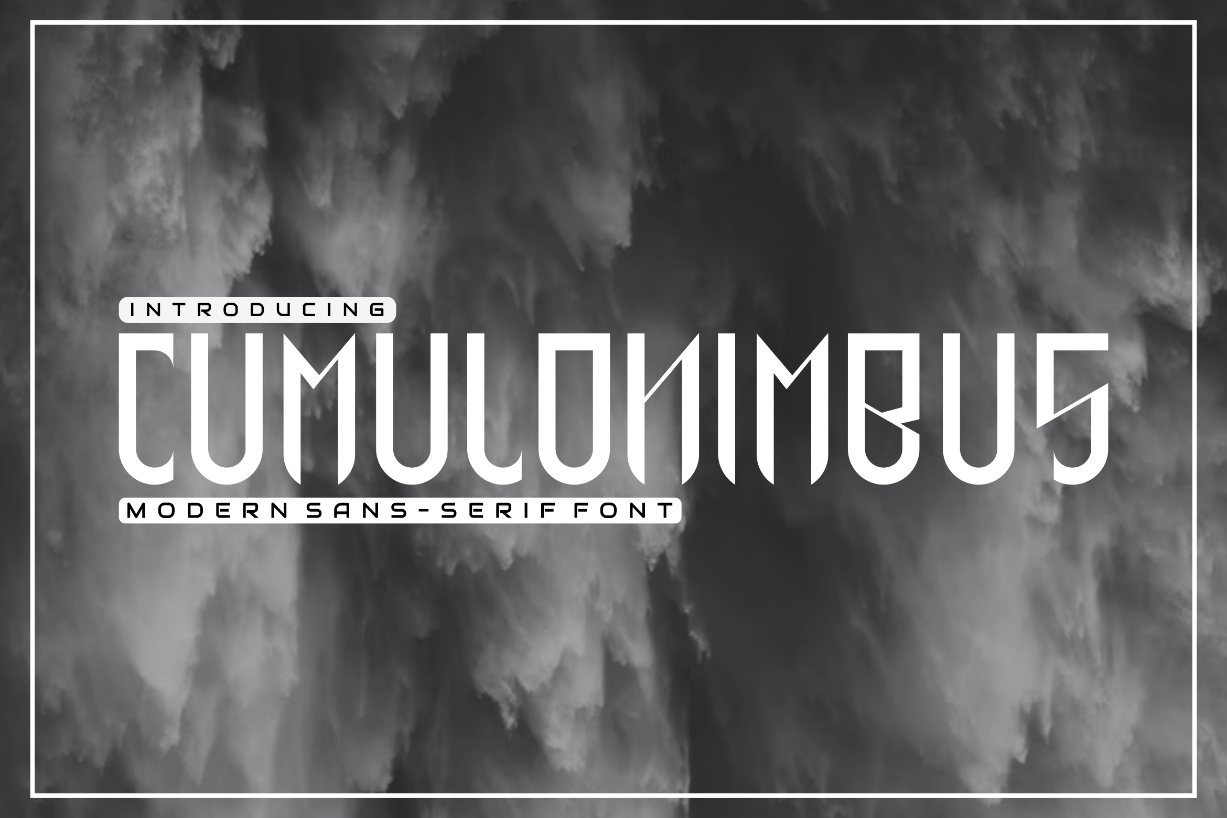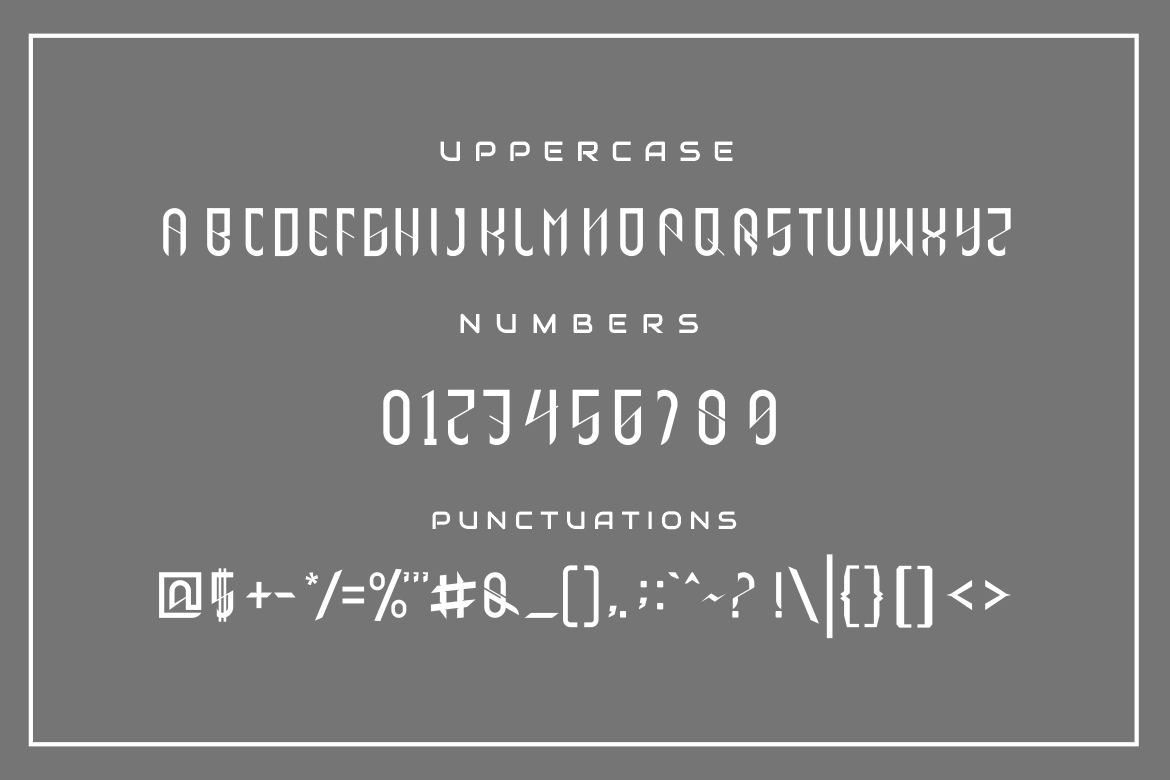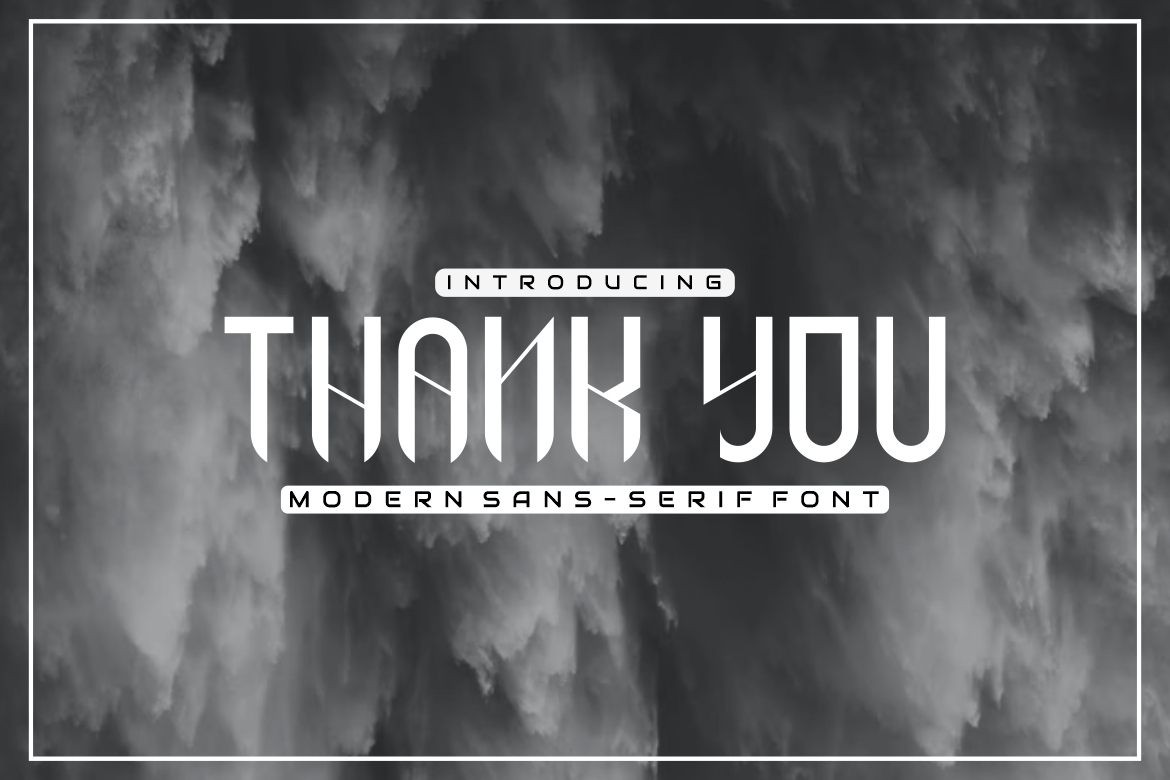
Cumulonimbus Font
About Cumulonimbus Font
Cumulonimbus is a modern and trendy blackletter font with a cool techno vibe. No matter the topic, this font will be an incredible asset to your fonts’ library, as it has the potential to elevate any creation.